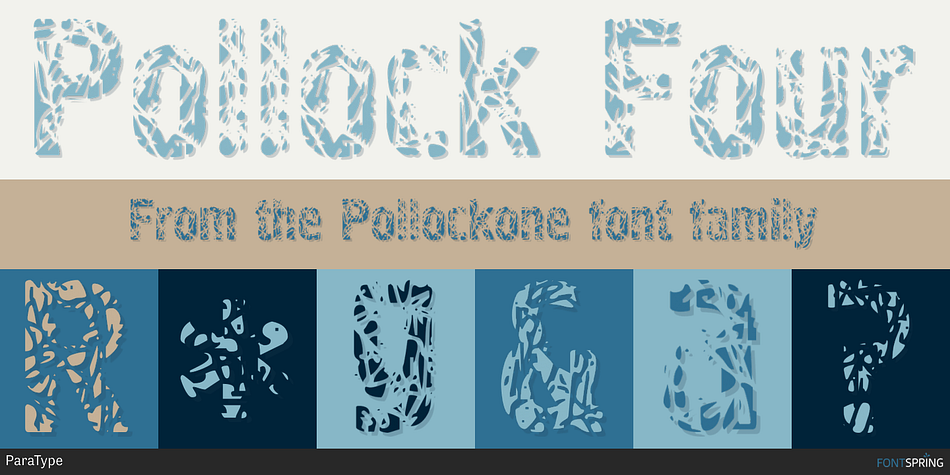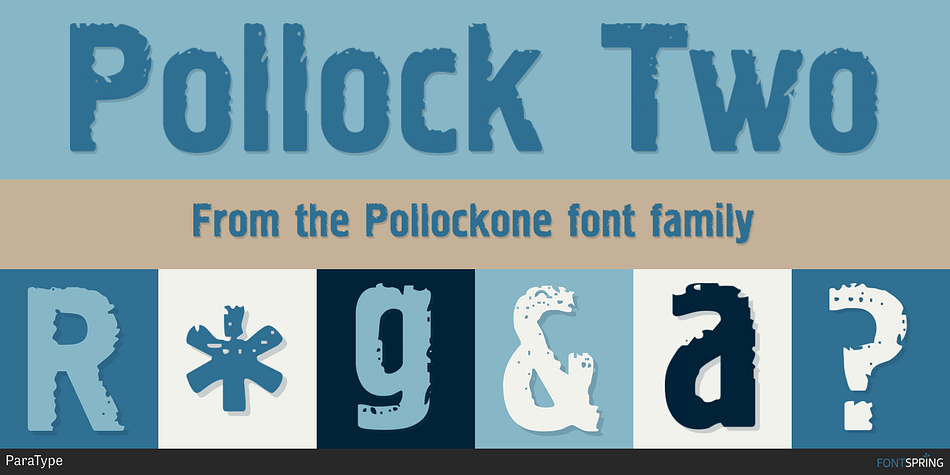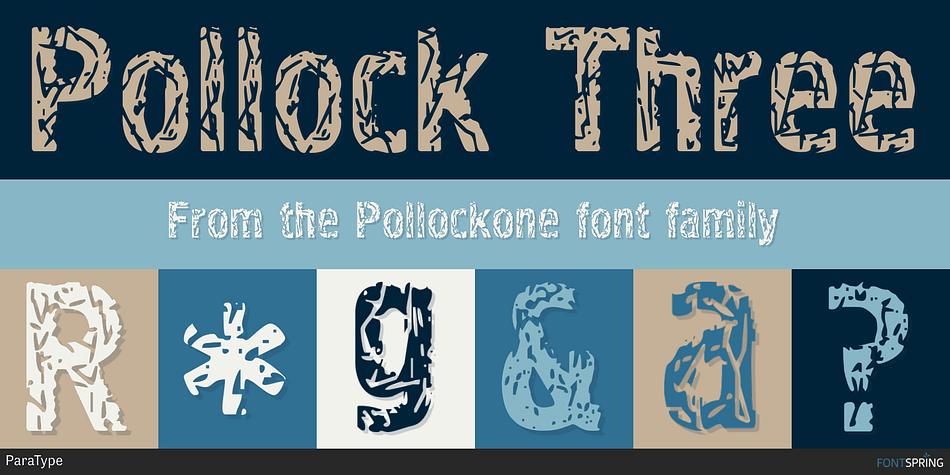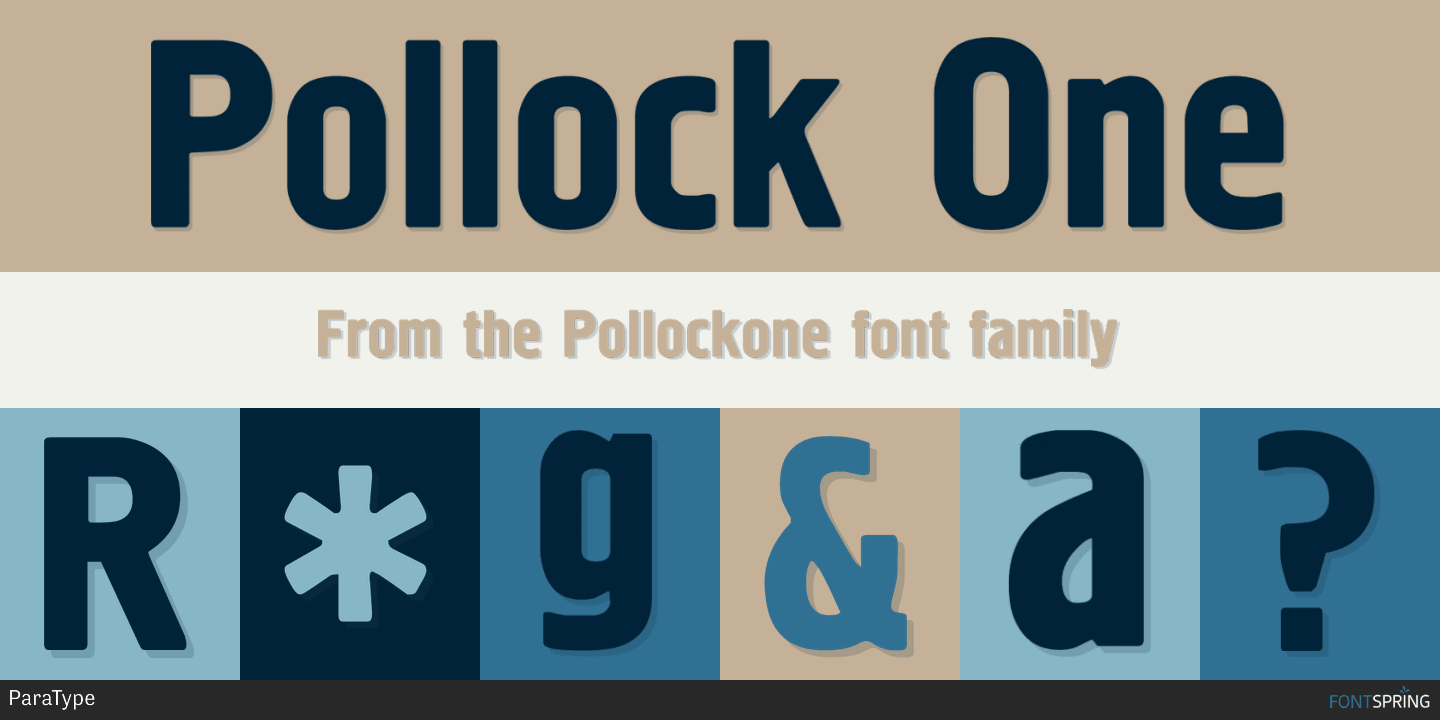
Designed by Alexander Tarbeev, Pollockone is a dingbat, grunge and display sans font family. This typeface has five styles and was published by ParaType.
An experimental type family designed at ParaType in 1995 by Alexander Tarbeev. Based on PT Hermes, 1993, by Tagir Safayev. Inspired by the art of Jackson Pollock. For use in advertising and display typography.
Released | 2005 |
Styles | Display Sans, Grunge, Dingbat |
Designer | Alexander Tarbeev |